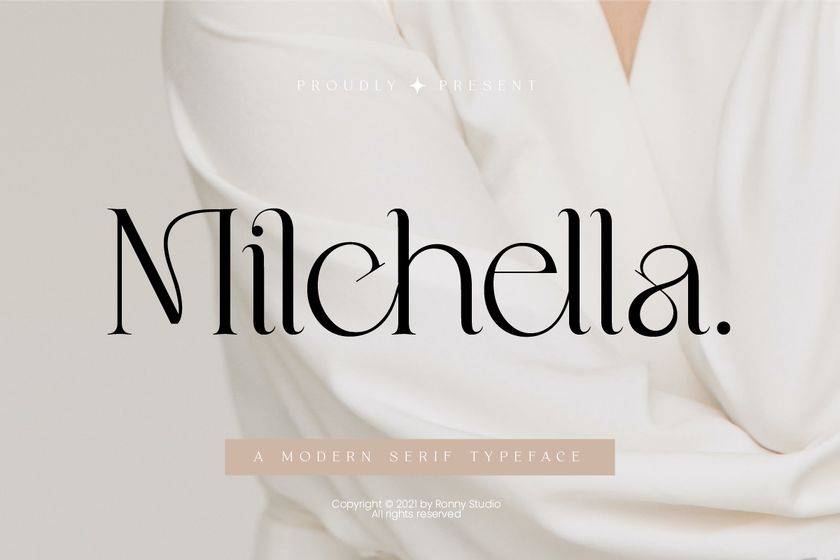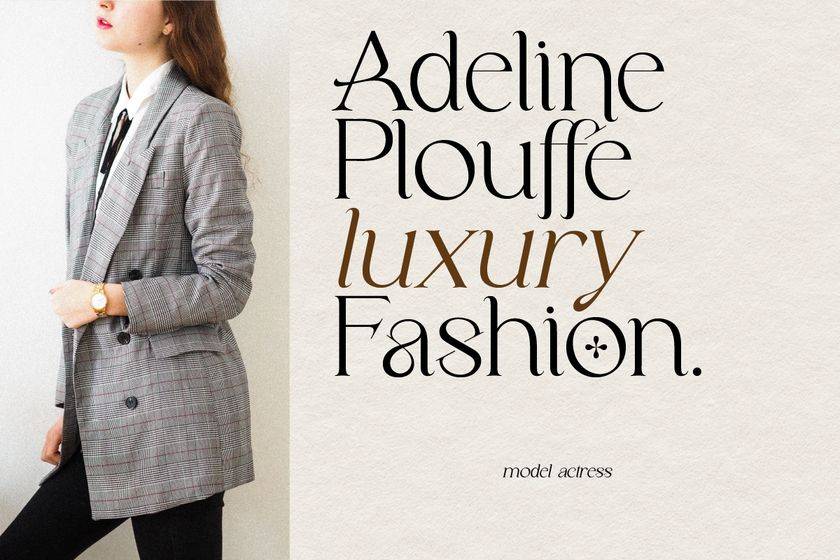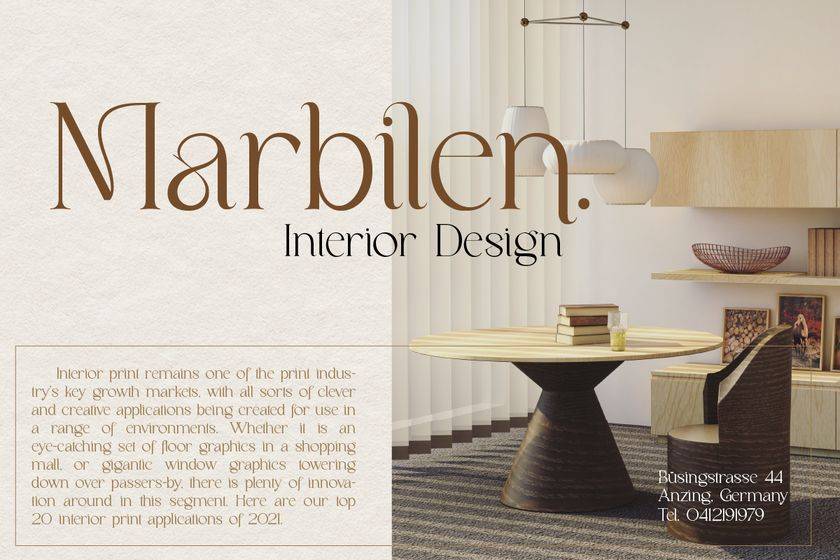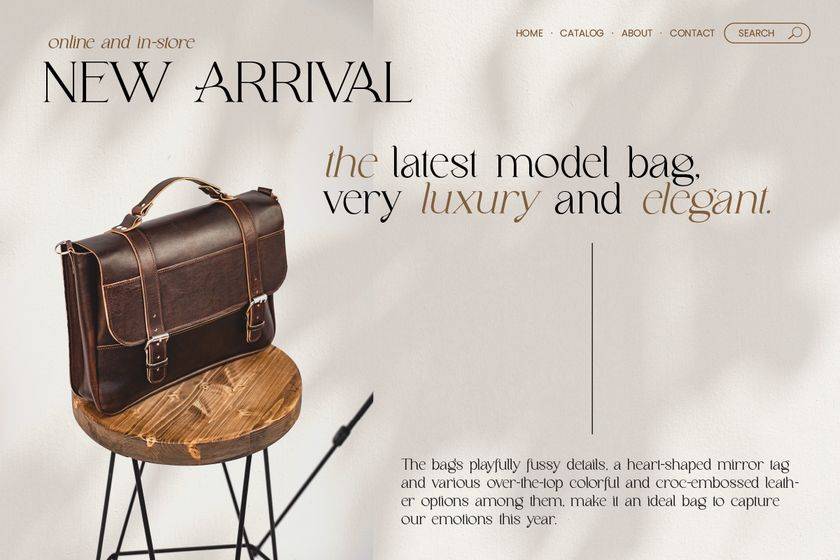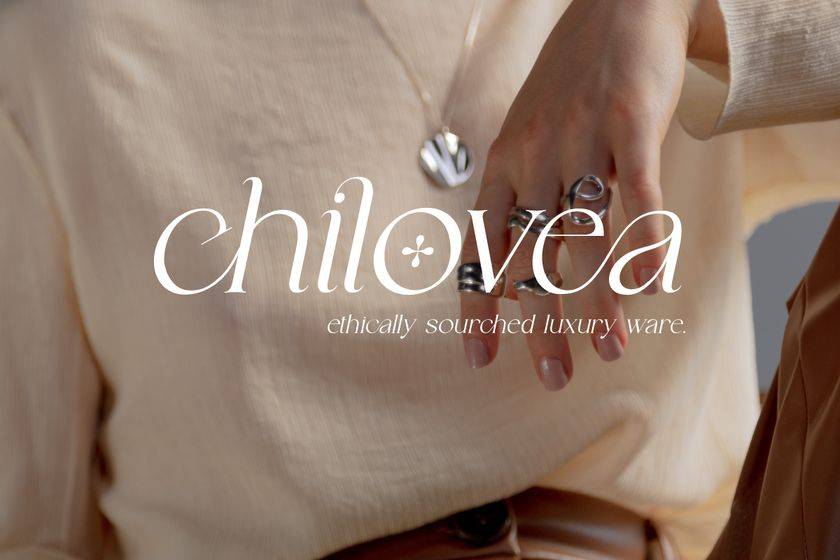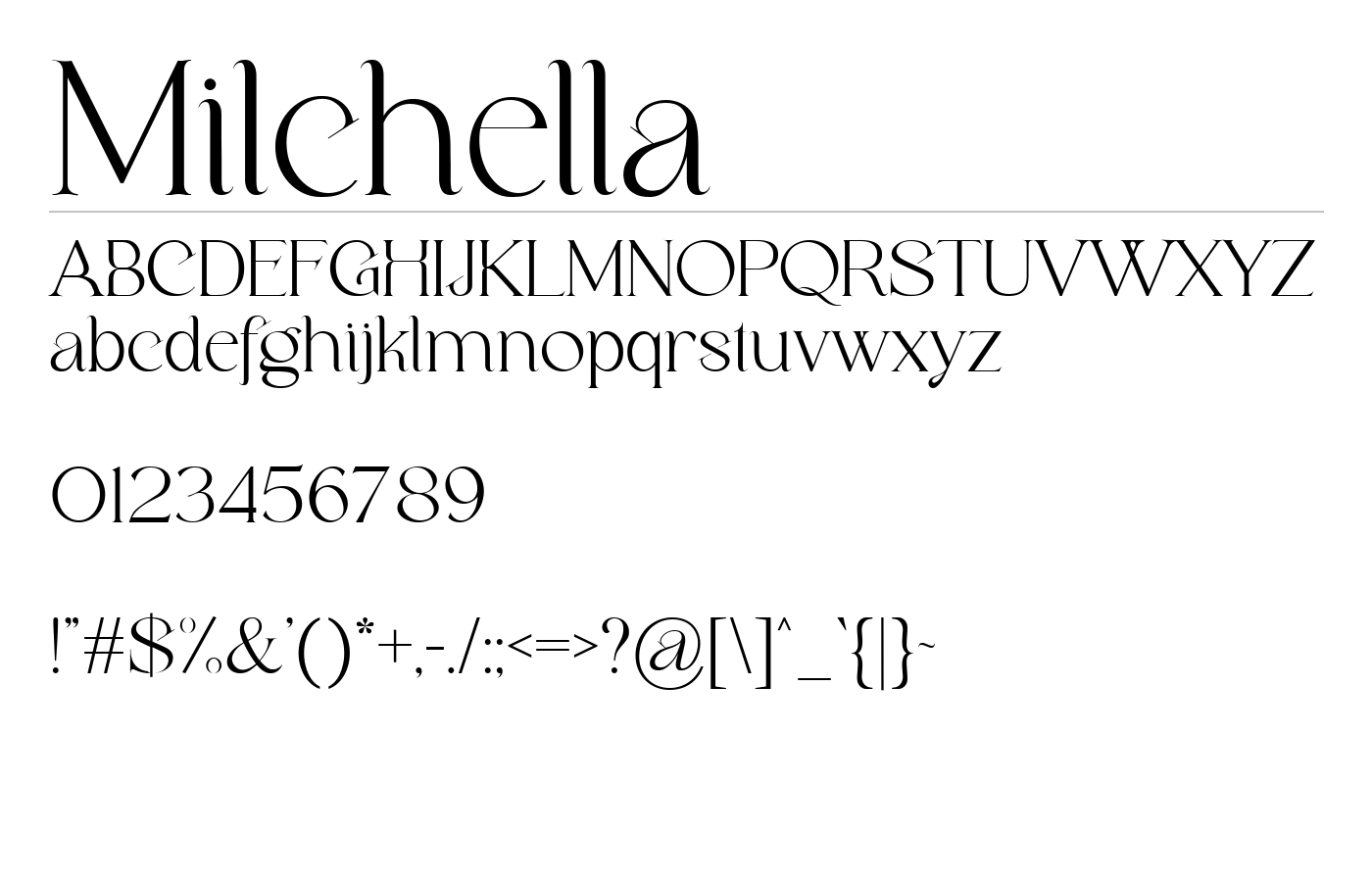
Milchella is an elegant serif font featuring fine, high-contrast strokes and delicate bracketed serifs that give it a refined, sophisticated look. With its slender forms, unique letter detailing, and graceful curves, it suits luxury branding, editorial headlines, and stylish packaging where a touch of classic yet modern charm is desired. This font’s airy spacing and distinctive character shapes make it perfect for designs that aim to communicate elegance and creativity.
Milchella Font
About Milchella Font